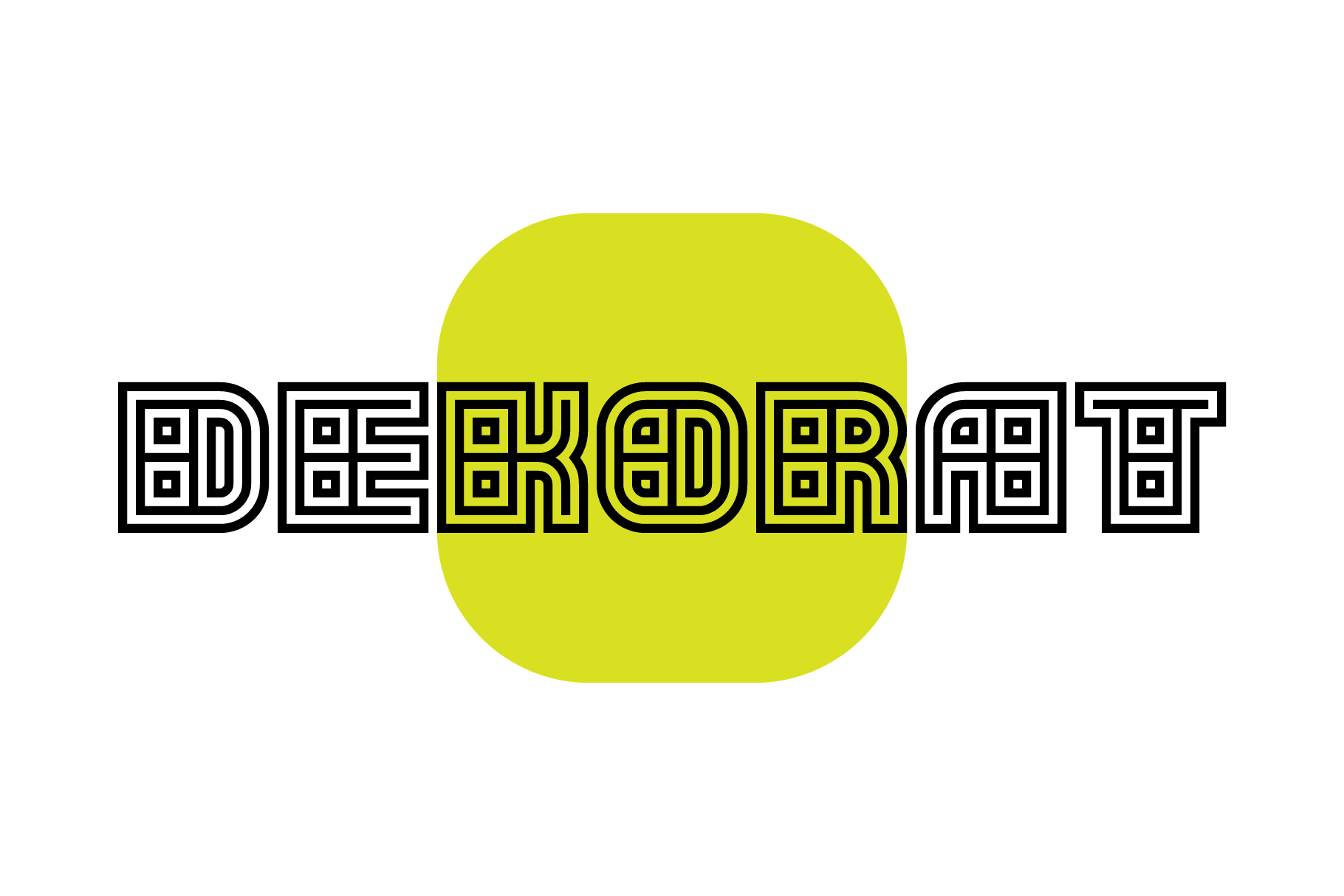
KD Dekorat - Maya display font
KD Dekorat - Artdeco font for display use. Initially submitted for a font design competition, it's now redrawn and polished with extra glyphs incl. Cyrillic script. All letters stay true to the uniformity of the modular design. Create catchy headlines, logos, large billboard messages that will drag client's attention. Pairs nicely with sans families.